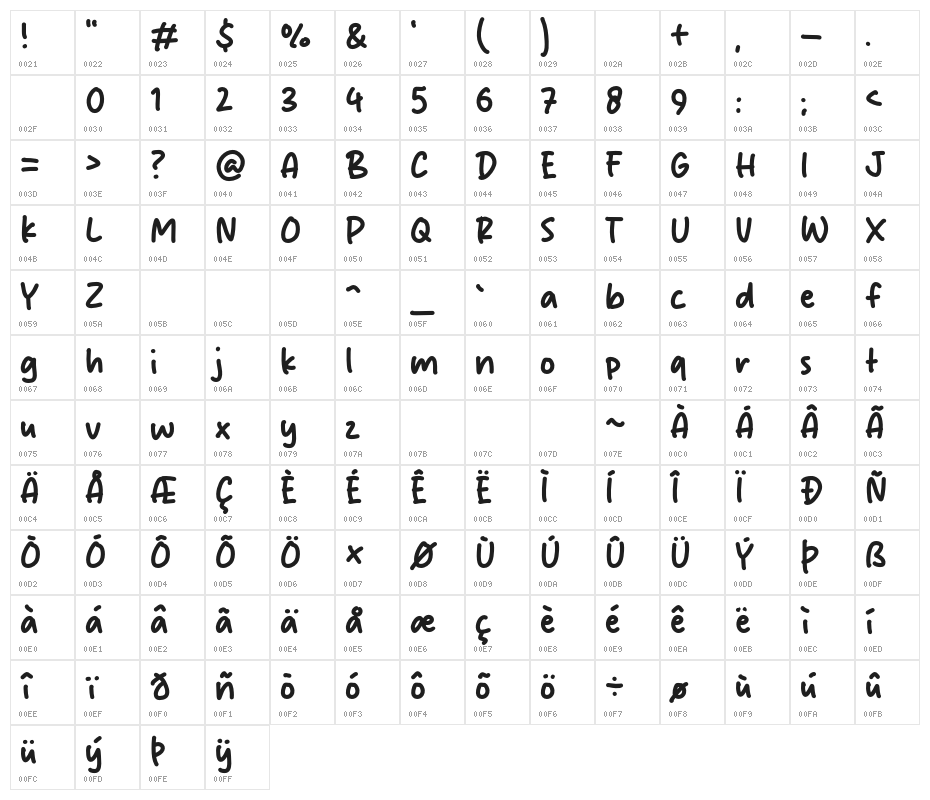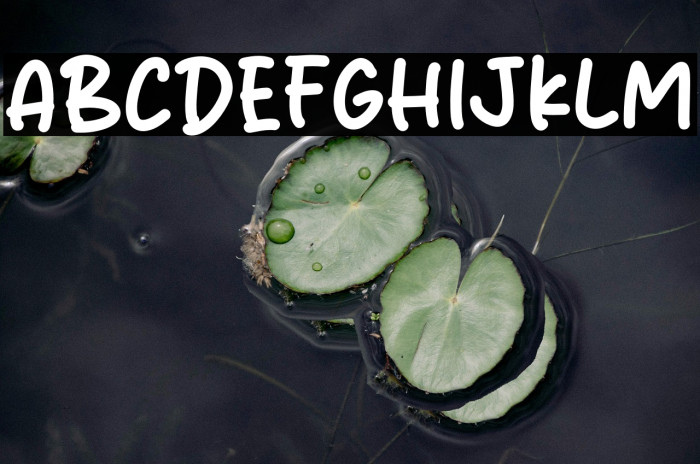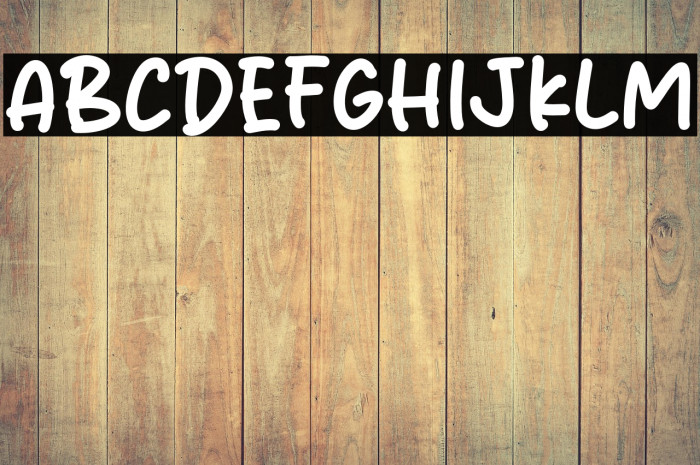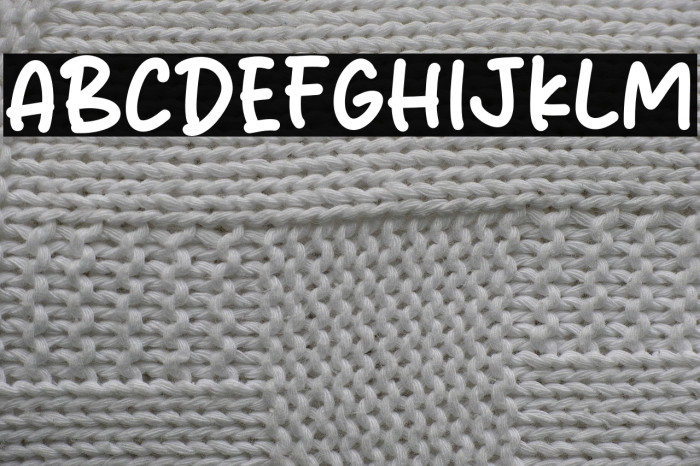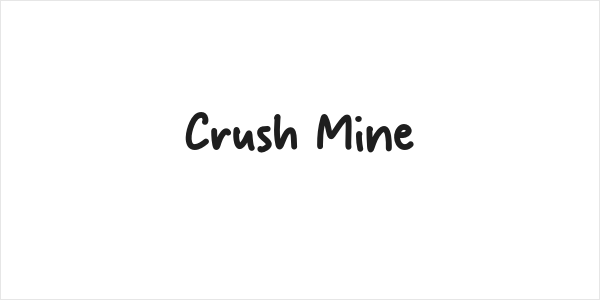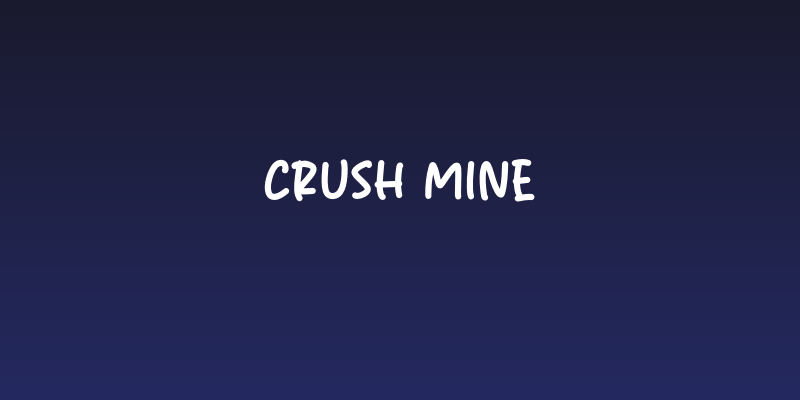
Crush Mine Font
Crush Mine Description
A playful, rounded handwritten typeface with consistent stroke width, casual curves, and a friendly appearance. The characters are slightly irregular, mimicking natural handwriting, and the overall look is informal and approachable.
| Overall Style | Playful, Informal, Friendly |
| Use Case | Headlines, Short text, Logos, Informal communication |
| Proposed Projects | Children's books, greeting cards, posters, social media graphics, branding for playful or creative businesses. |